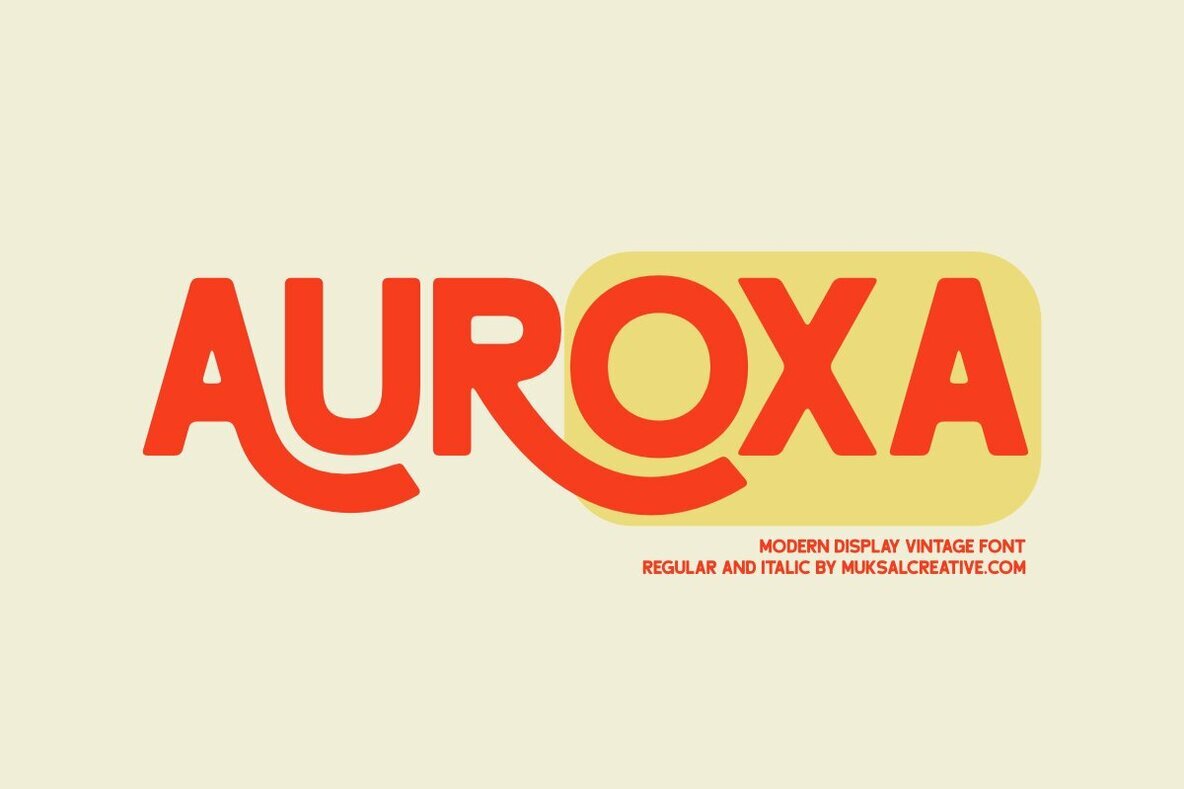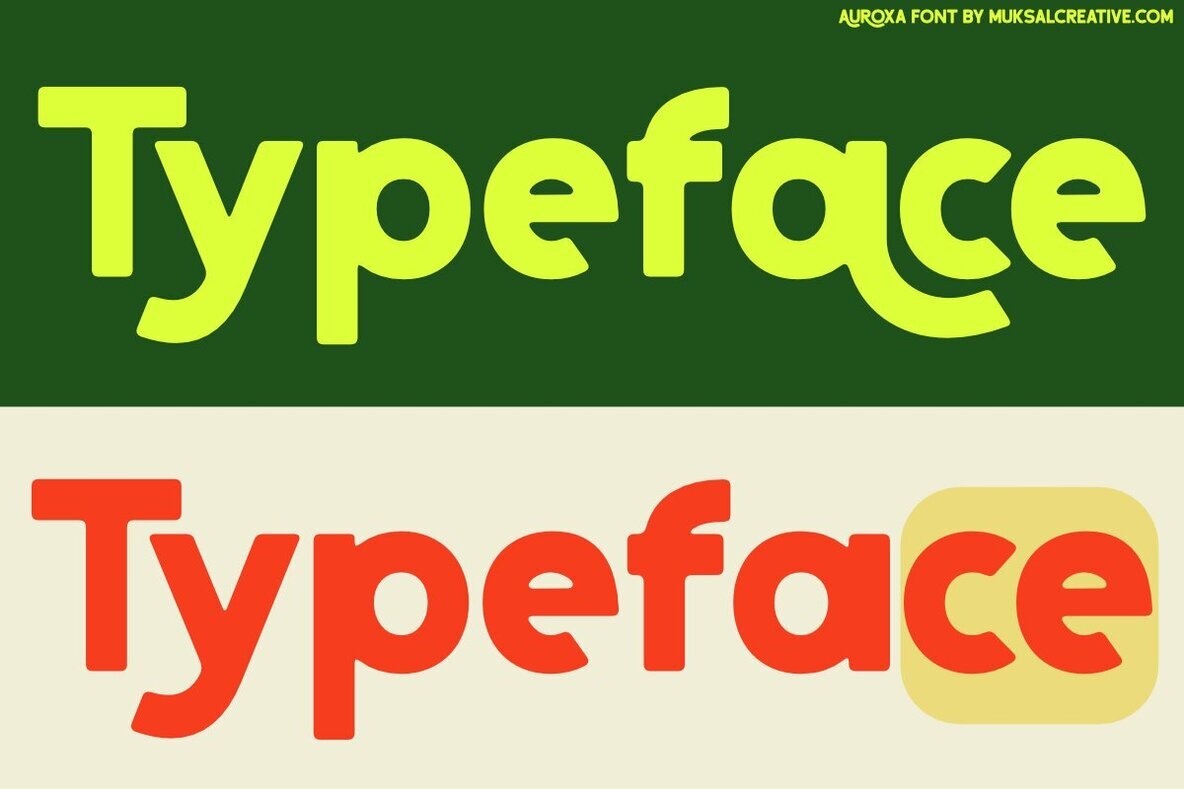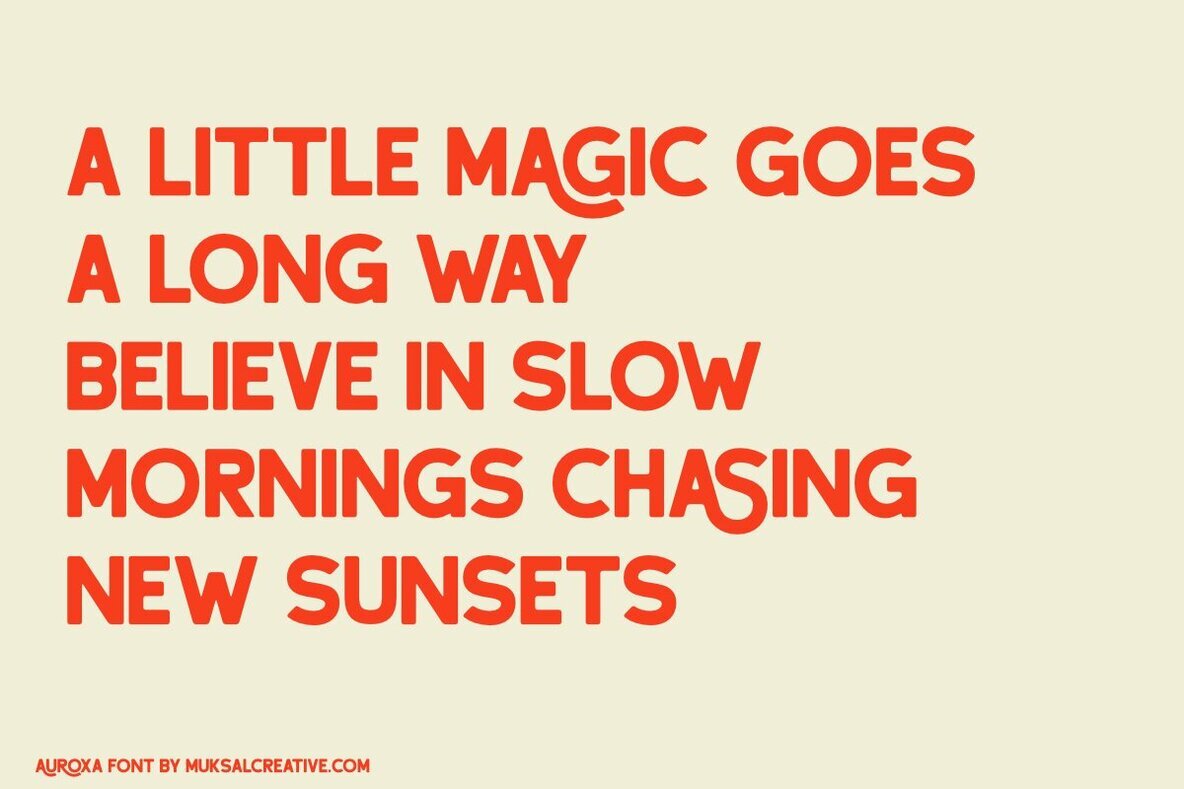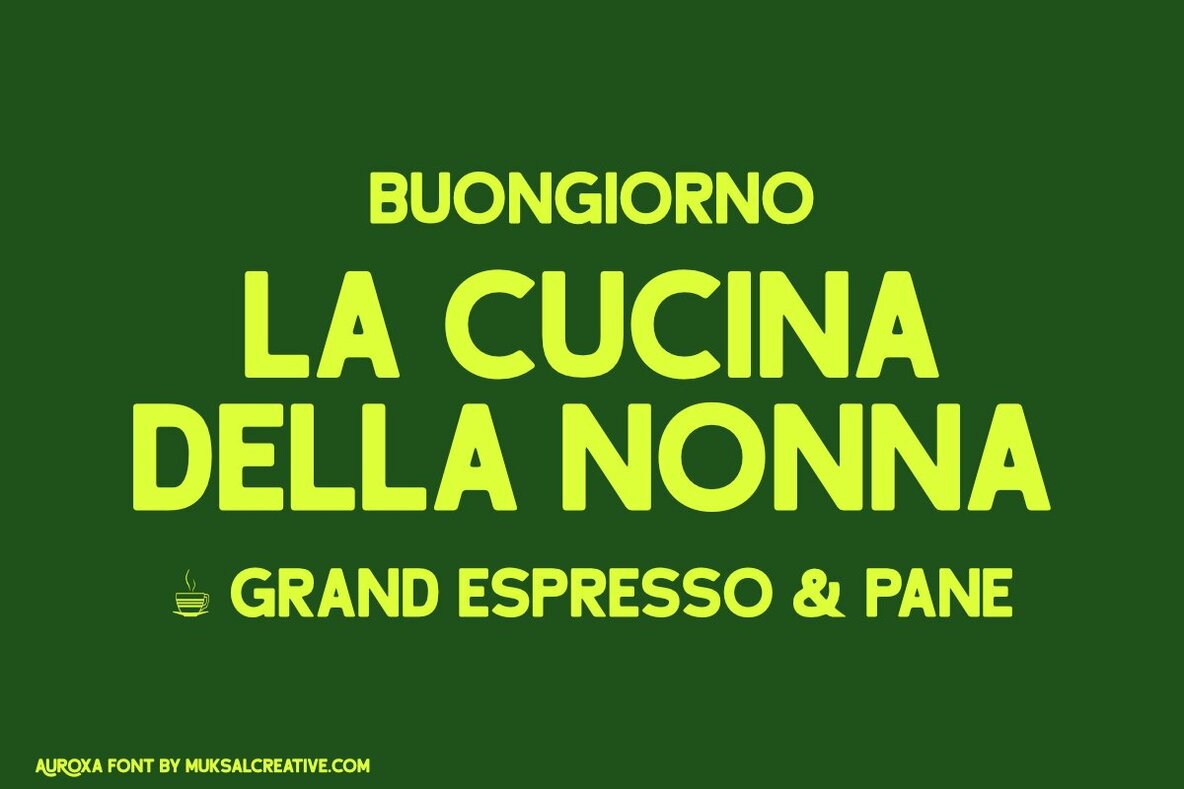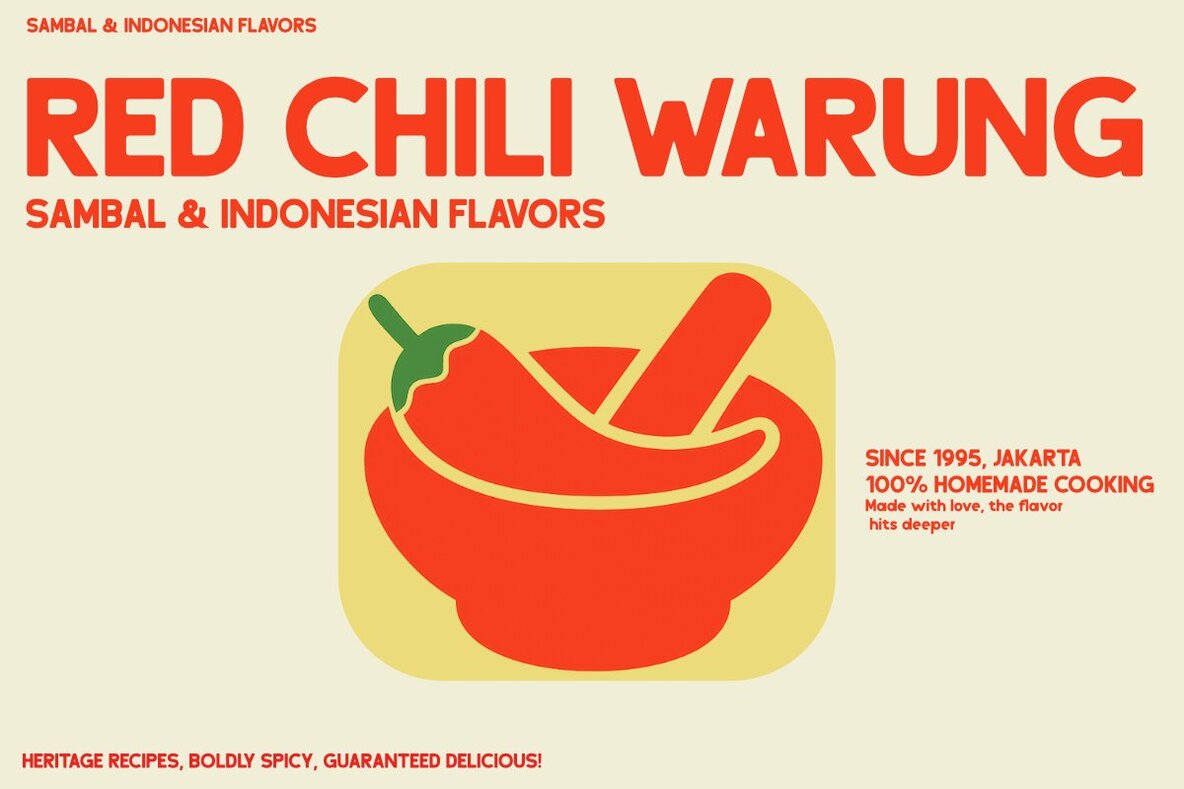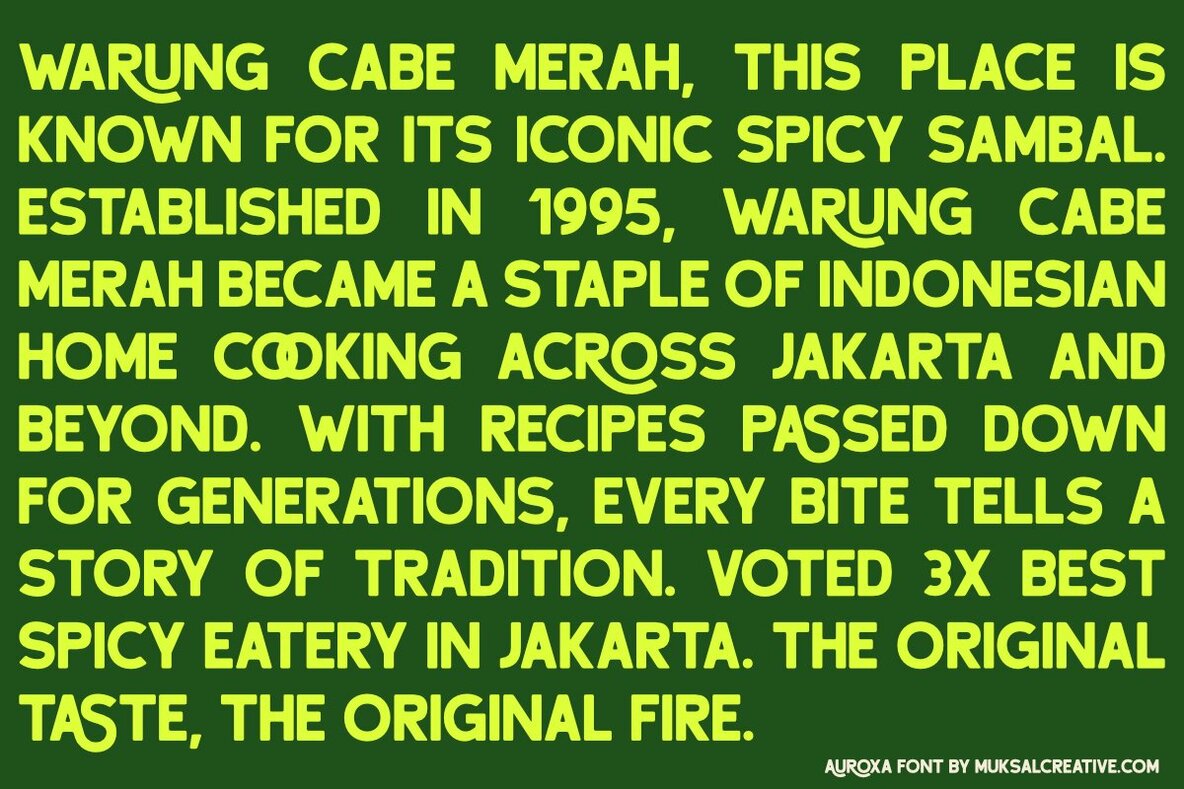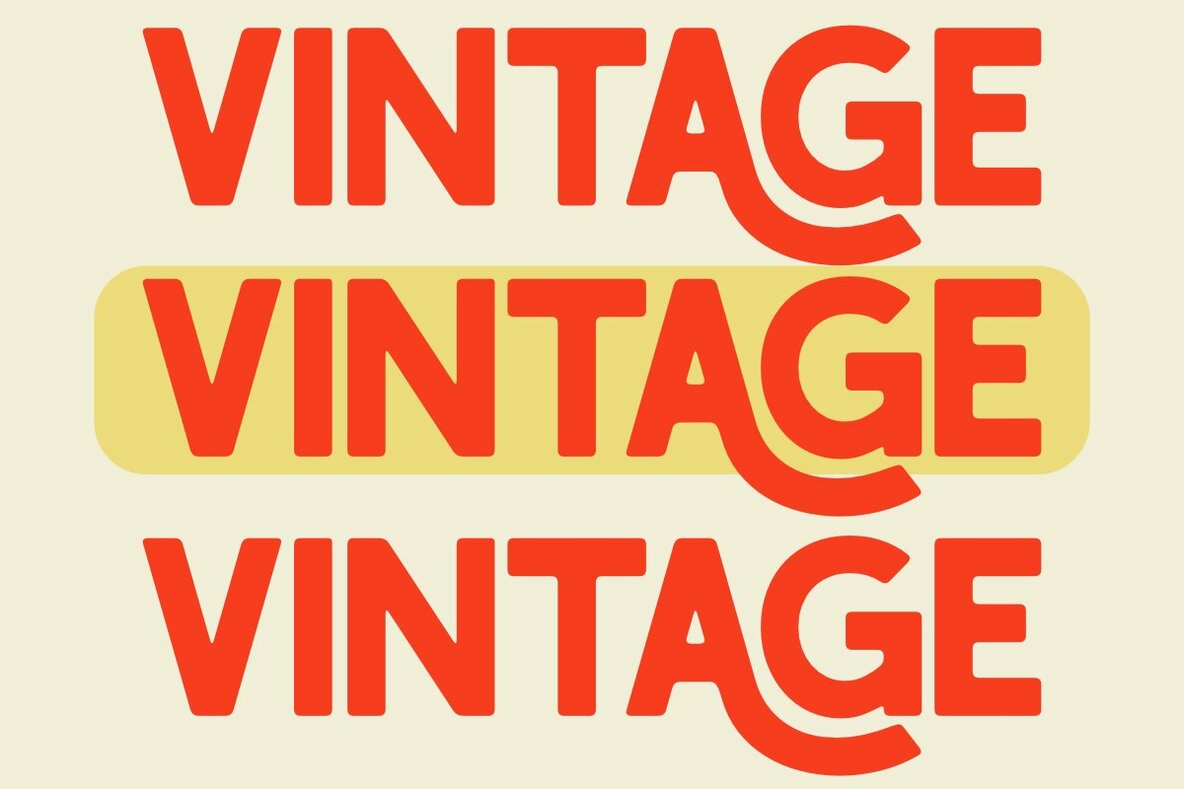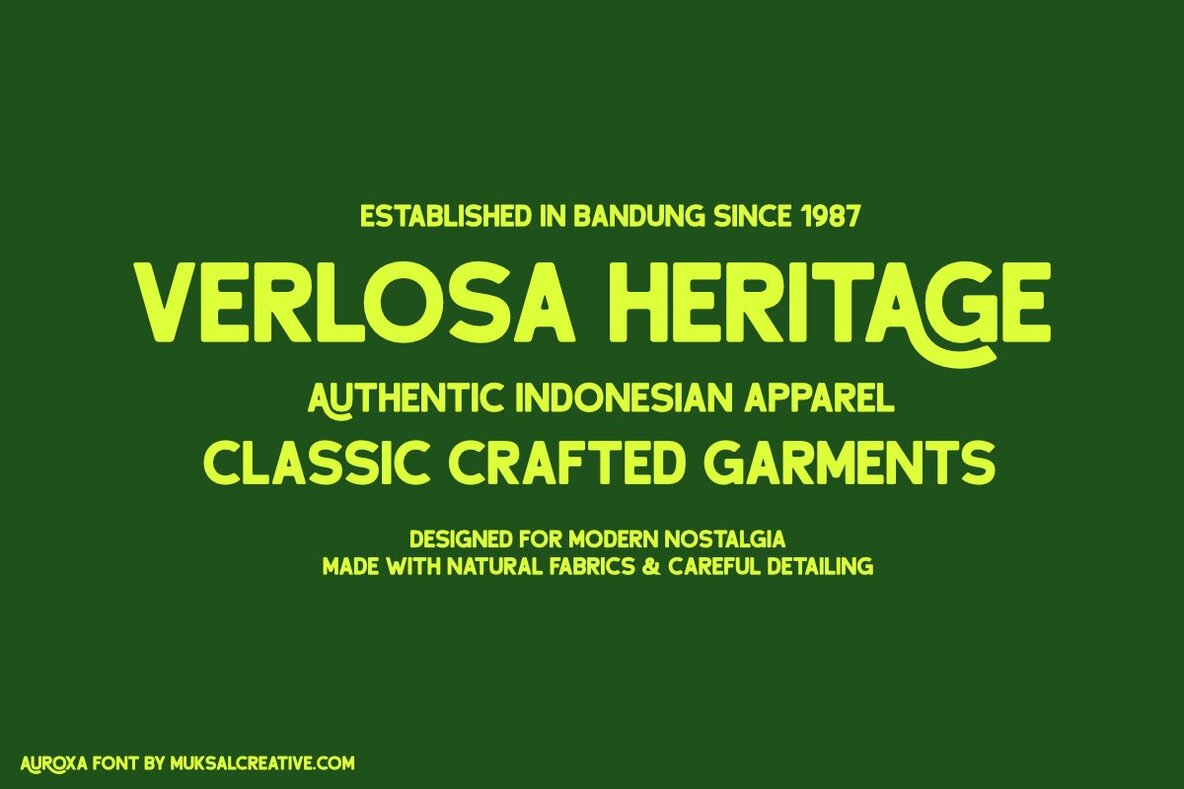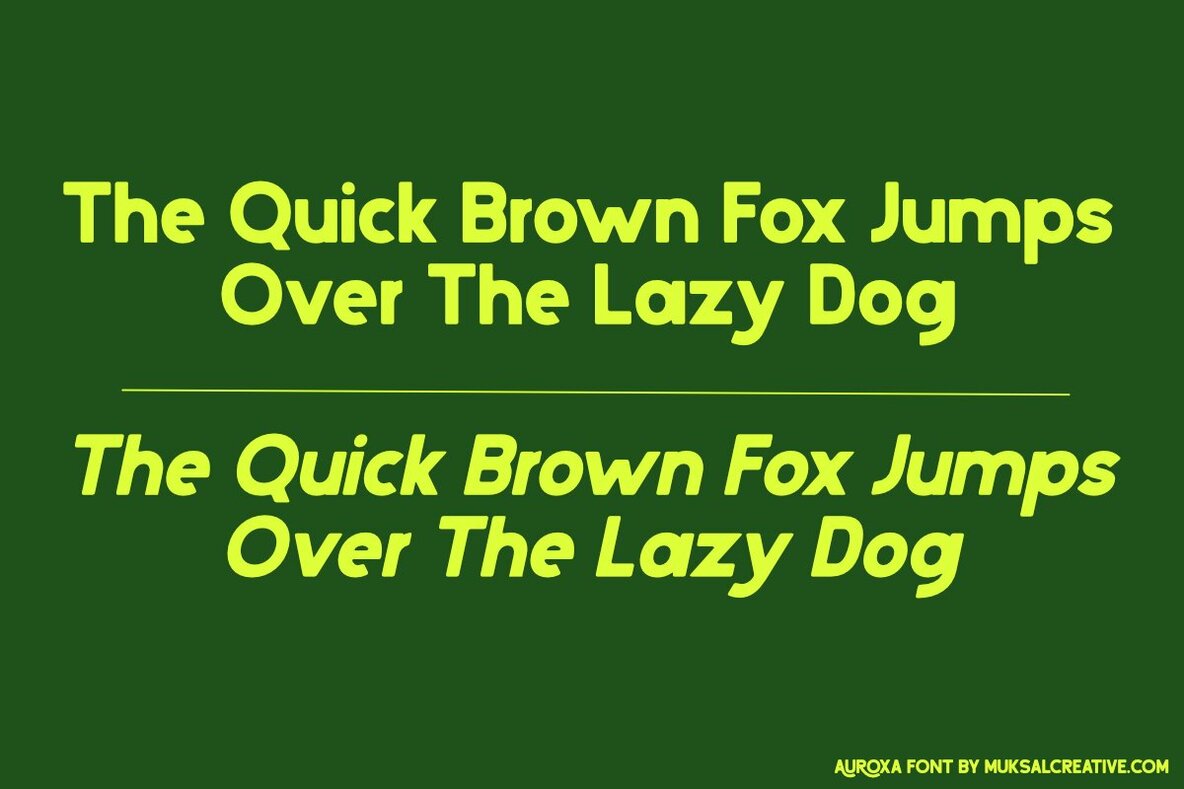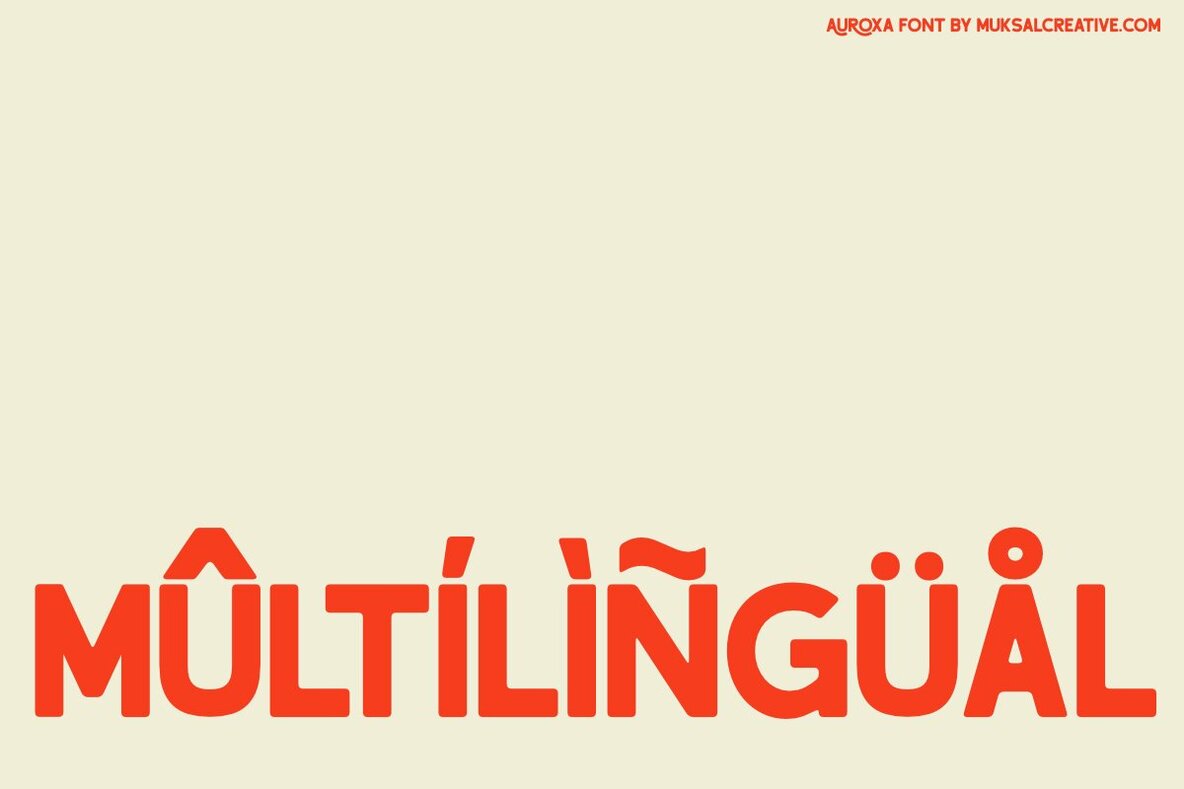
Auroxa Font
Auroxa Regular
Auroxa Italic
Auroxa draws on vintage aesthetics and adds a contemporary twist, offering bold and confident typography. Its unique ligatures and stylized forms make it an excellent choice for branding projects that require character and impact. Inspired by mid-20th century signage and classic packaging, Auroxa brings nostalgic flair to your designs while speaking with a modern voice. Its versatility makes it ideal for fashion labels, café menus, retro posters, editorial titles, product packaging, and creative logos. Features:Auroxa: Retro-Modern Display Font with Impact